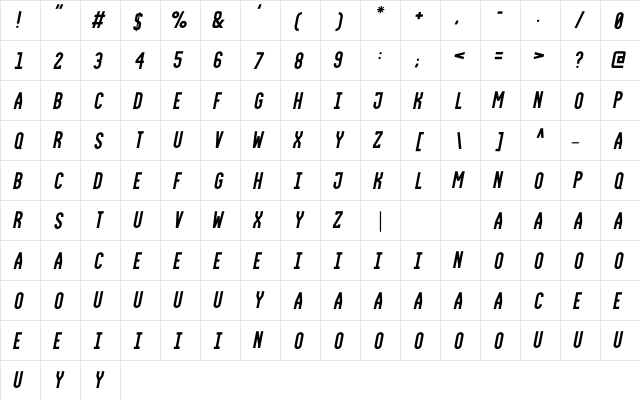
FrederickSans Italic
Design Context for FrederickSans Typeface
FrederickSans takes a measured approach to typography — its balanced proportions and neutral character make it a reliable workhorse for both digital and print work. Its italic angle brings a sense of urgency and motion to the letterforms.
Pro Tip: Use FrederickSans for emphasis, pull quotes, and subheadings where its slanted energy can add rhythm to the layout.